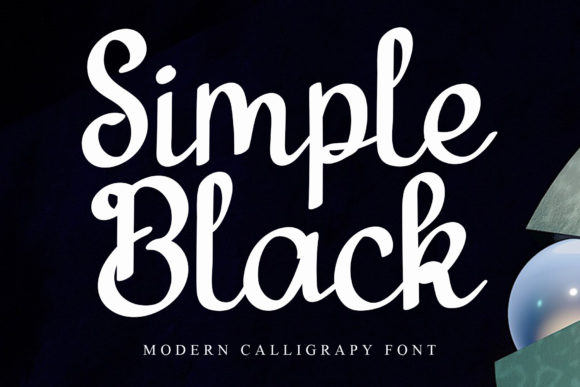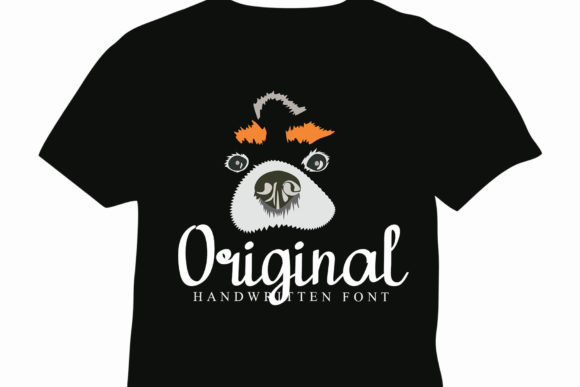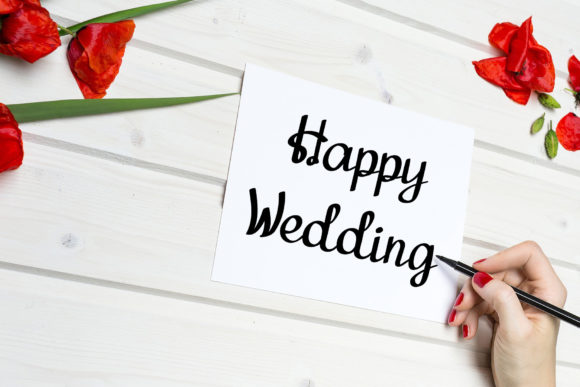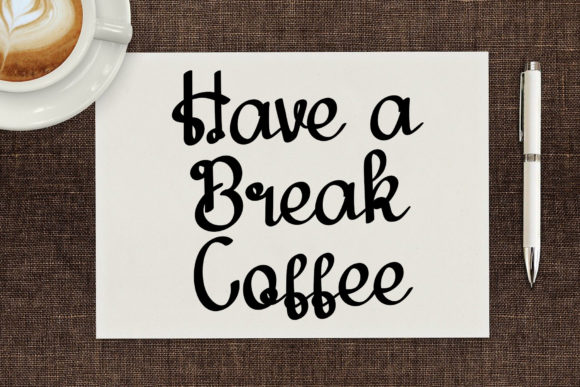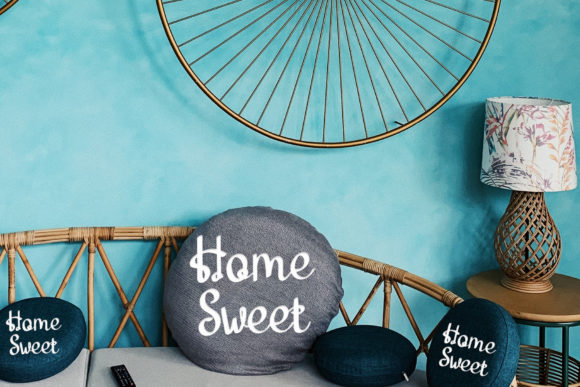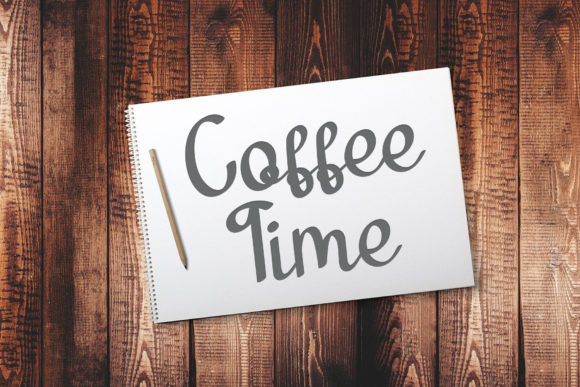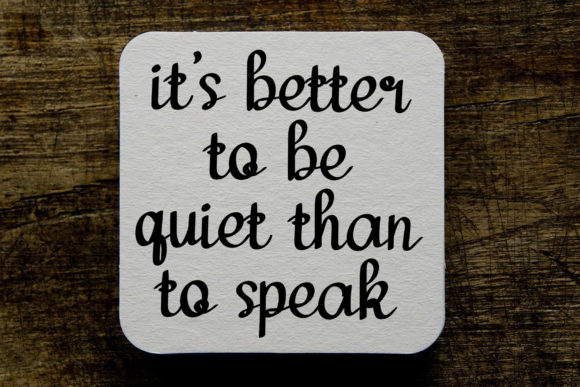
Simple Black Font
About Simple Black Font
Simple Black is a chic and dainty handwritten font, that features a relaxed and sweet style. It is defined by smooth curves and is perfect for fashion branding or editorial designs.